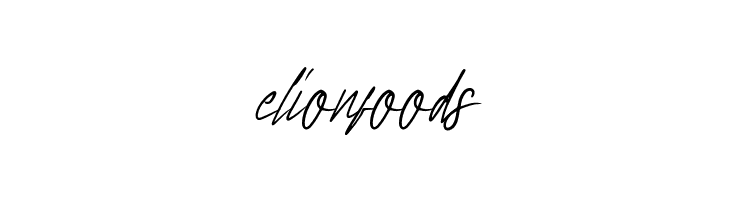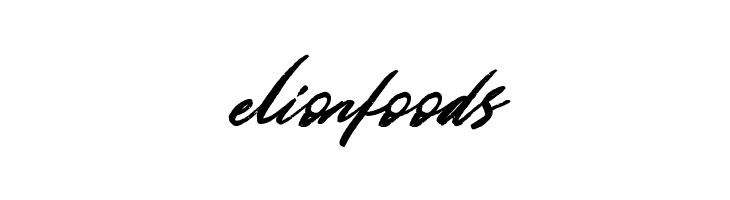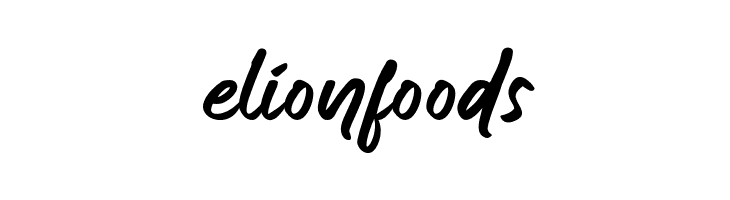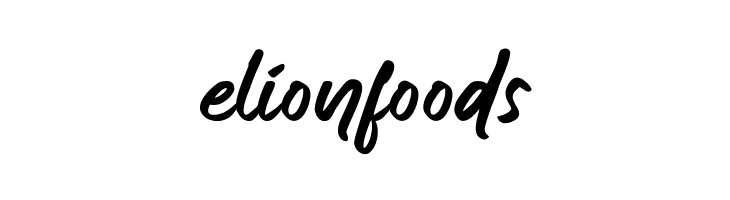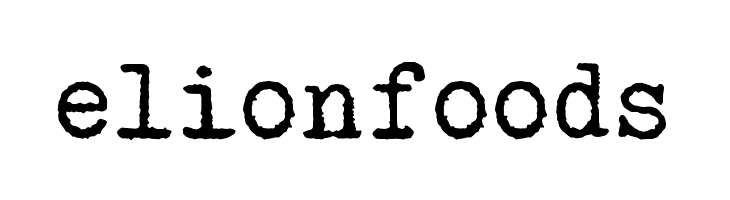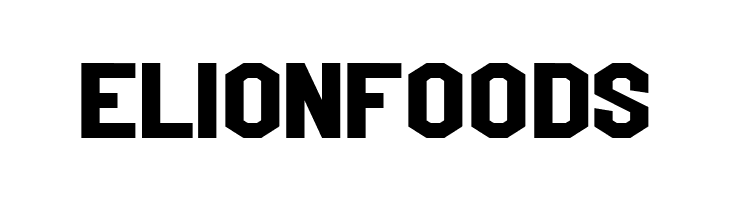
A bold, blocky font with a playful, rebellious edge and hand-cut appearance.
A dynamic, expressive handwritten font with fluid, cursive strokes.
A dynamic, expressive handwritten font with fluid cursive letterforms.
A bold, star-filled decorative font ideal for eye-catching displays.
A display font composed of illustrated portrait glyphs instead of traditional letterforms.
A dynamic and elegant script font with fluid, cursive strokes.
A bold, geometric font with sharp angles and a vintage-modern appeal.
A vintage typewriter-style font with a distressed, nostalgic appearance.
A bold, brush-style font with dynamic and expressive strokes.
A bold, expressive script font with fluid, dynamic strokes.